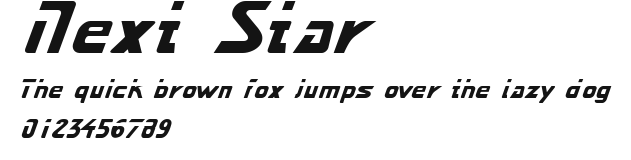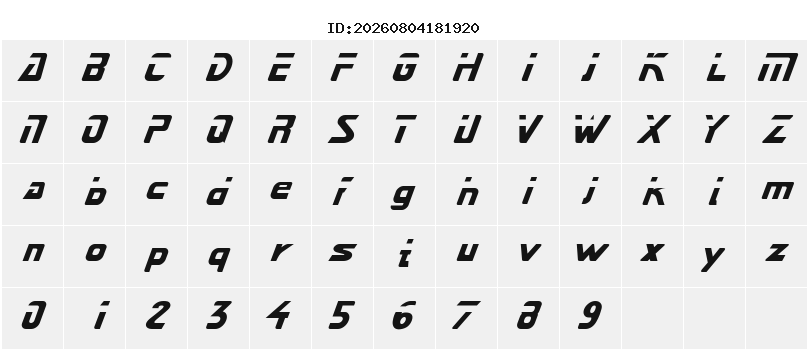
Next Star Preview
• Font Name: Next Star
• Font Style: Kursiv
• Font ID: Next Star
• Full Font Name: Next Star Kursiv
About Next Star.ttf
Next Star.ttf is a modern, elegant sans-serif font designed for ultimate readability and visual harmony. Perfect for branding, headlines, web design, and print materials.